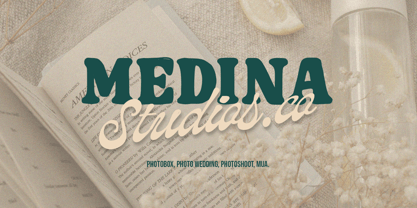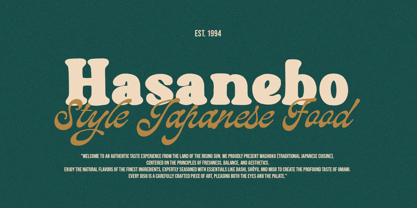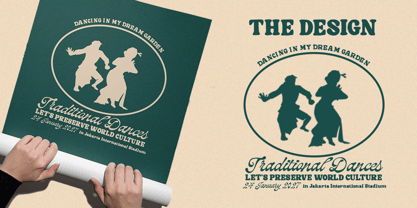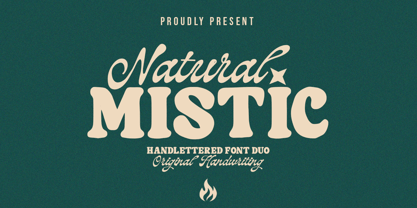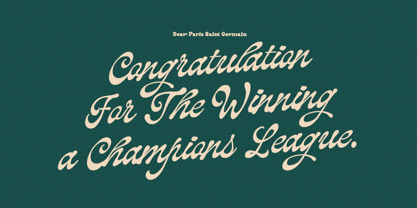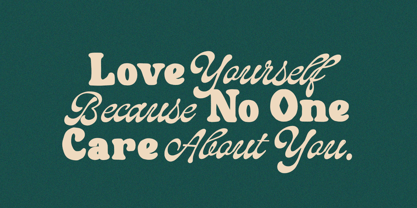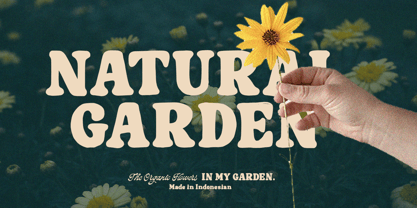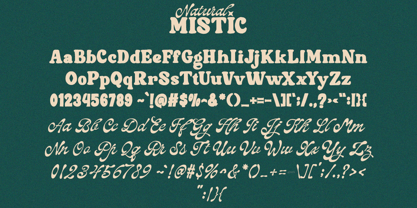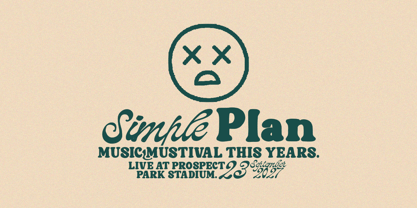
Natural Mistic
by Struggle Studio
The Natural Mistic Font Family was designed by Andri Kurniawan and published by Struggle Studio. Natural Mistic contains 2 styles and family package options. More about this family
Natural Mistic is a Handlettered Font Duo that offers a strong, versatile vintage and authentic feel. Natural Mistic (Display): A bold, groovy, bubble-style typeface with soft, rounded edges. It has a 1970s retro vibe, is playfully eye-catching, and features unique decorative flair (like a star accent). Original Handwriting (Subtext): An elegant, flowing cursive script that contrasts the display font, adding a personal, handcrafted, and authentic touch. Ideal for: Branding/Logos, Posters, Packaging, and Merchandise that need a striking, retro, or artisan aesthetic.
Designers: Andri Kurniawan
Foundry: Struggle Studio